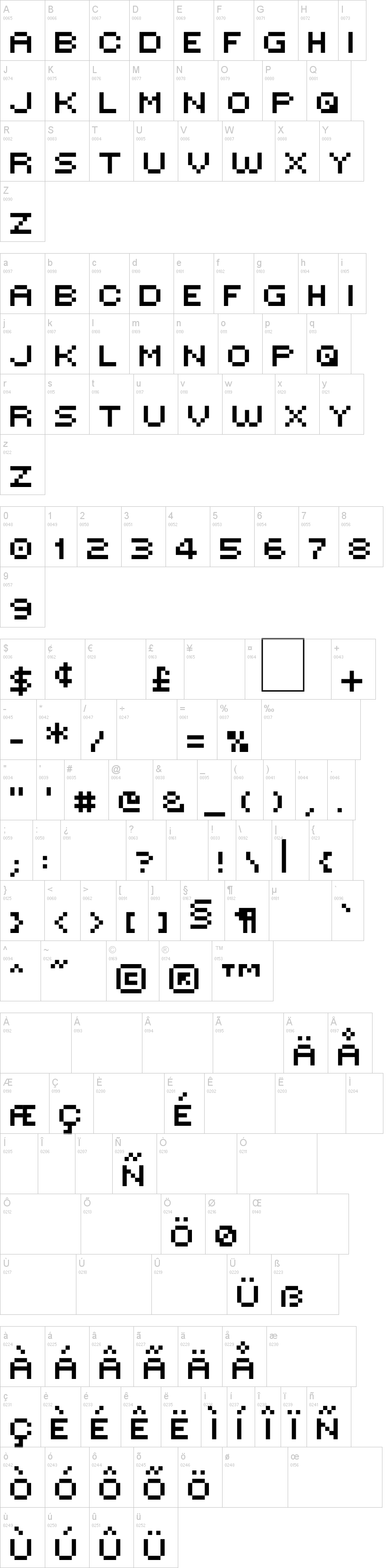
Note of the authorThis is a font I had created sometime in 2005 out of frustration at the lack of good quality pixel fonts. I was working on a project when I needed this and dropped said project just to create the font. The very sad part is that shortly after finishing it up, I totally forgot what it was that I was doing